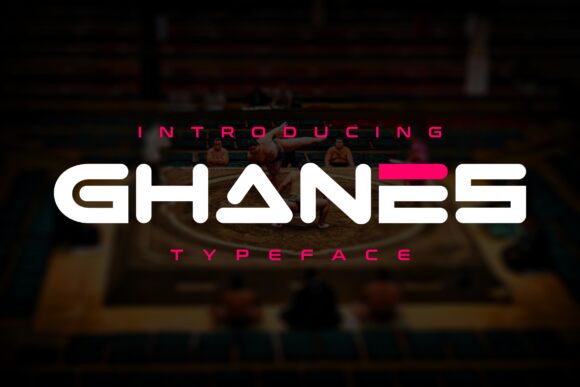
Ghanes Font
Ghanes font by Albert Kalingga is a futuristic display typeface with an expanded, bold look. It has clean lines and a geometric inspiration expressed through straight edges and smooth curves. All the letters are professional-looking, with a uniform style that makes the font minimalist, modern, and tech-inspired.